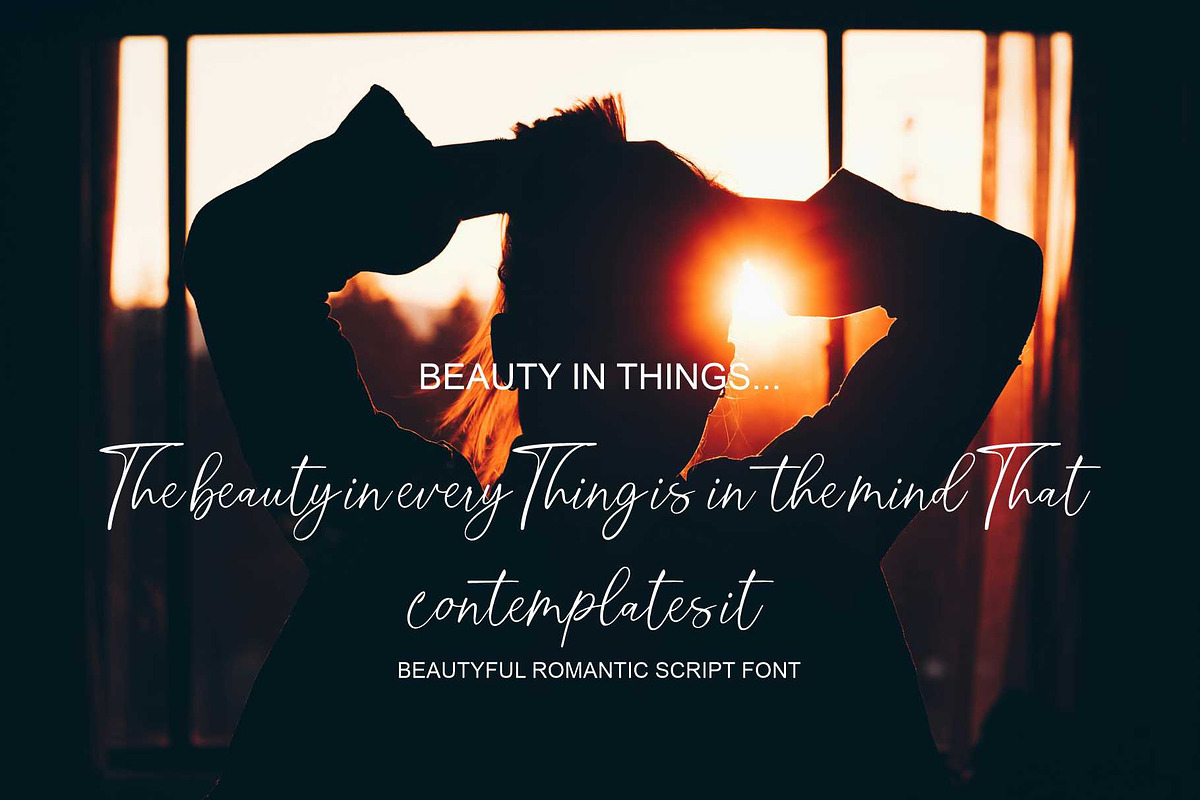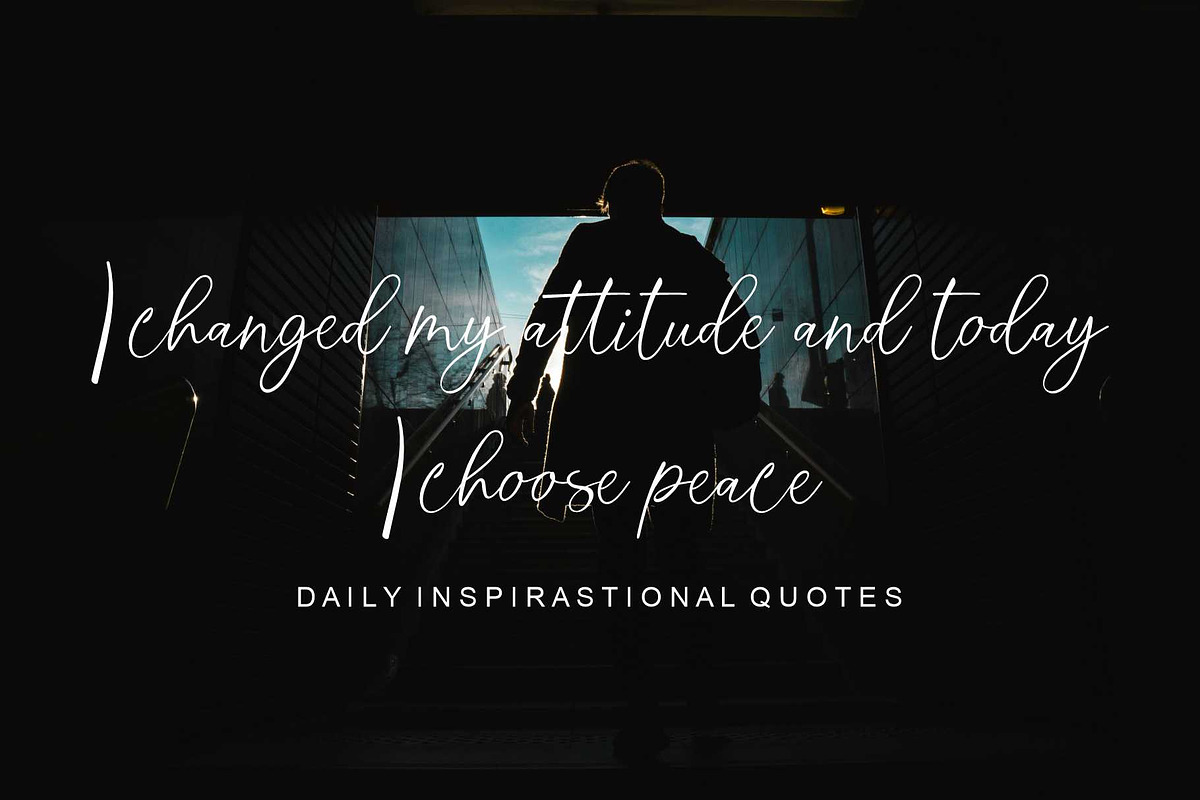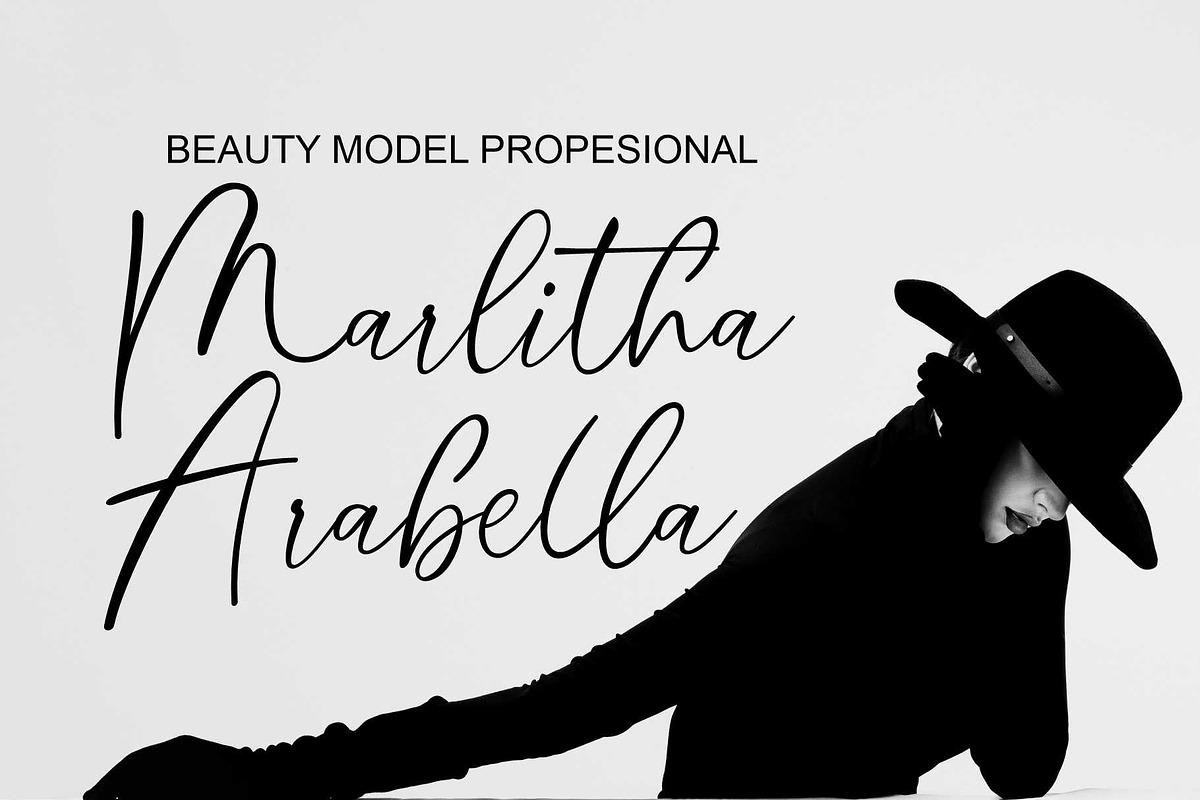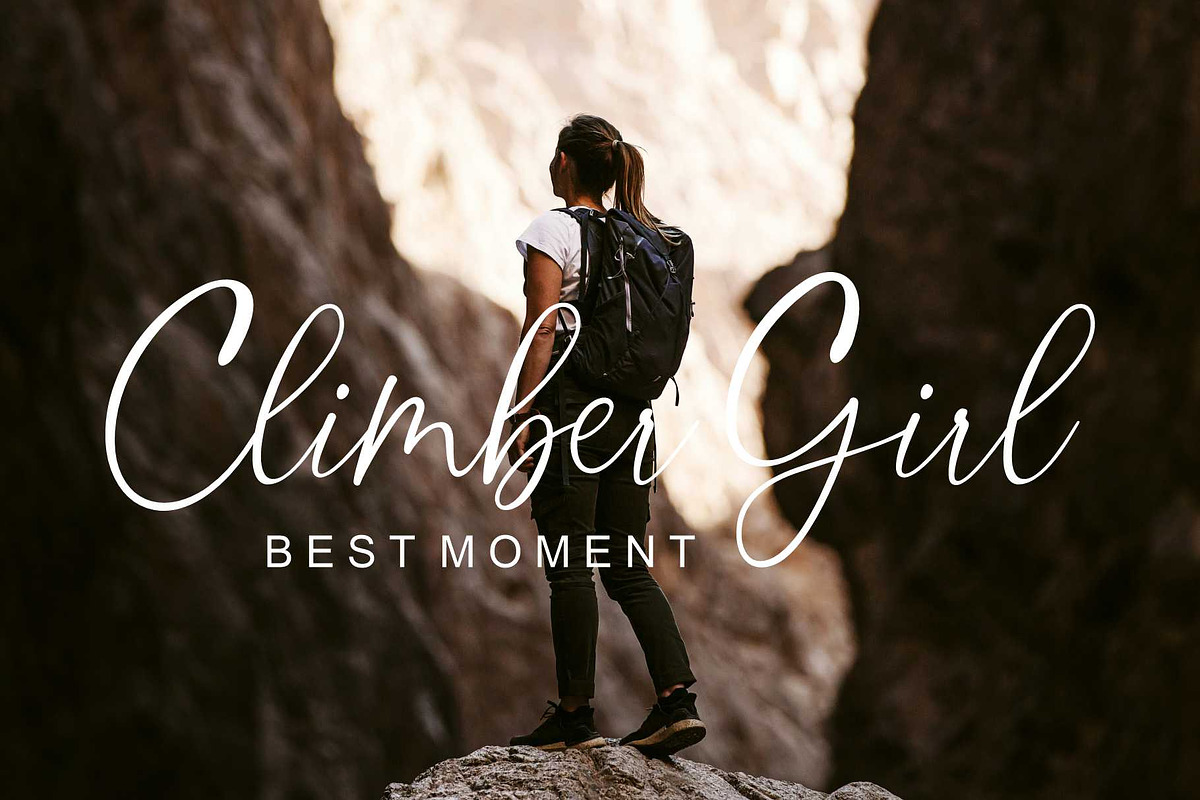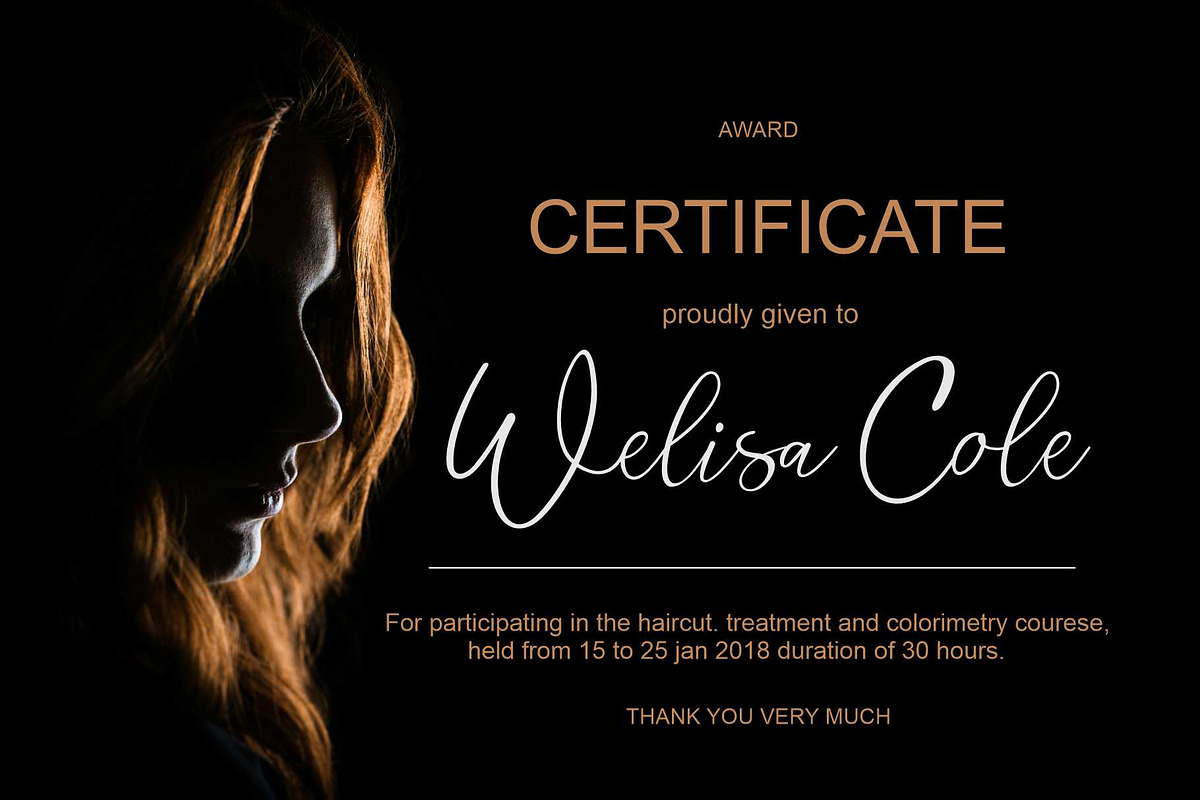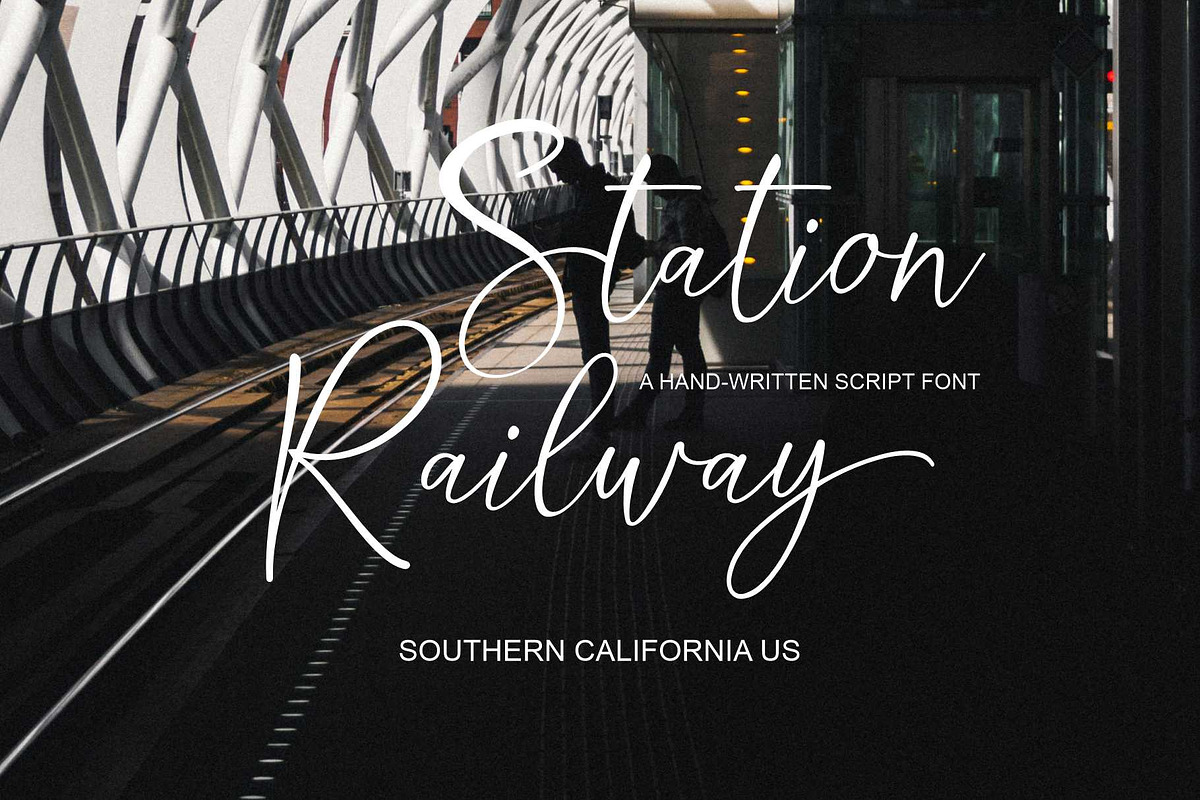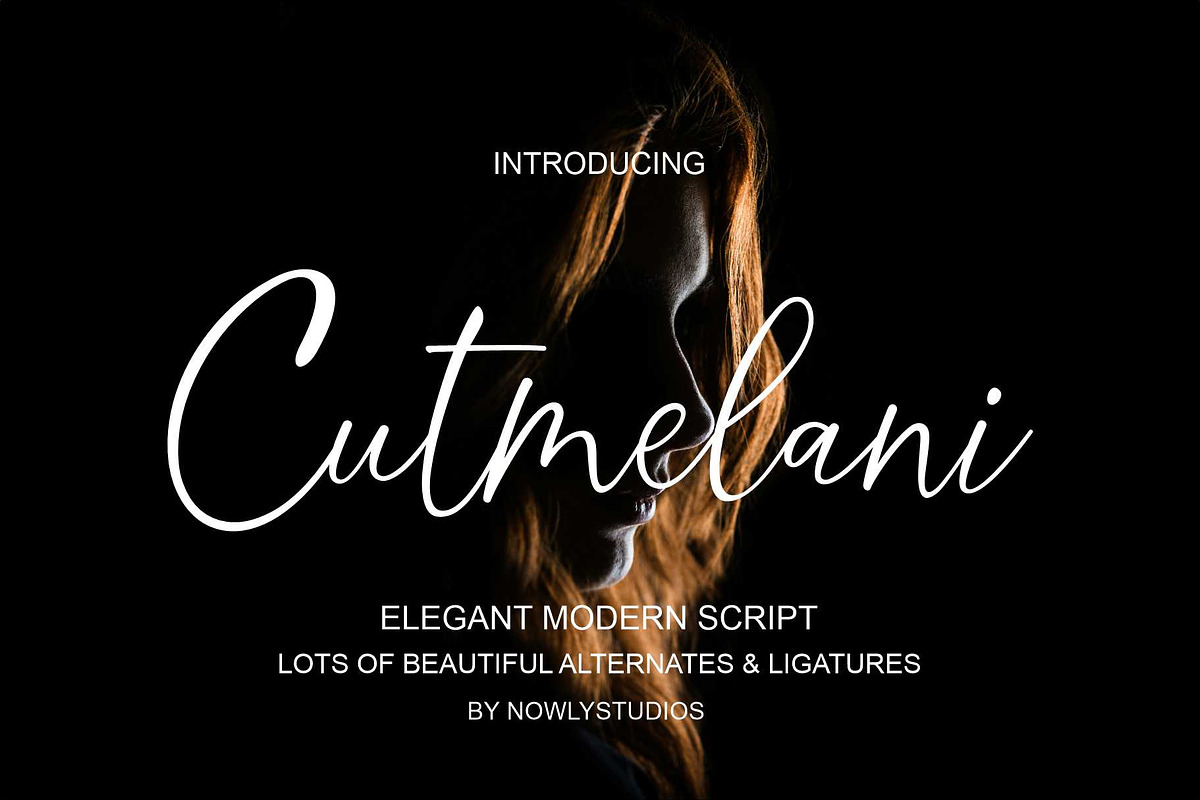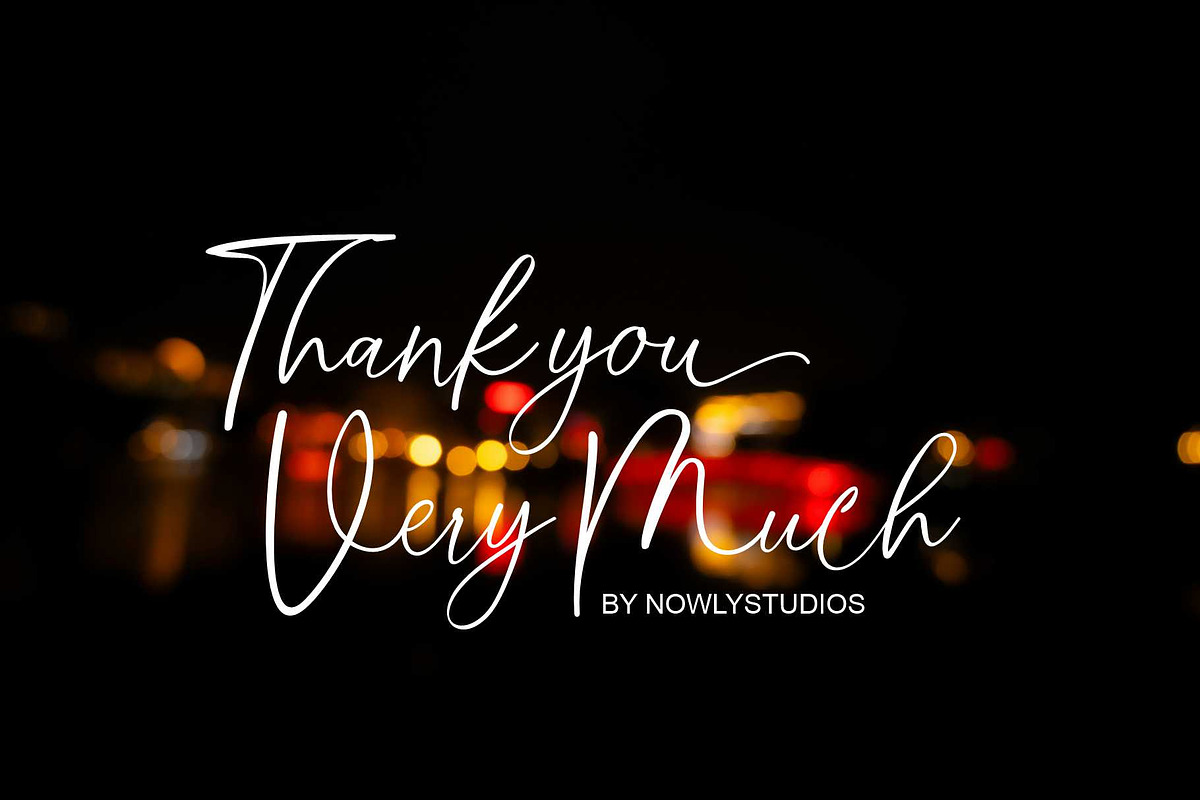
Cutmelani Script
Cutmelani is a script font. Cutmelani is equipped with plenty of OpenType features: To activate the alternates click on Swash, and Stylistic Alternates in any OpenType savvy program or manually select the characters from Glyph Palette.